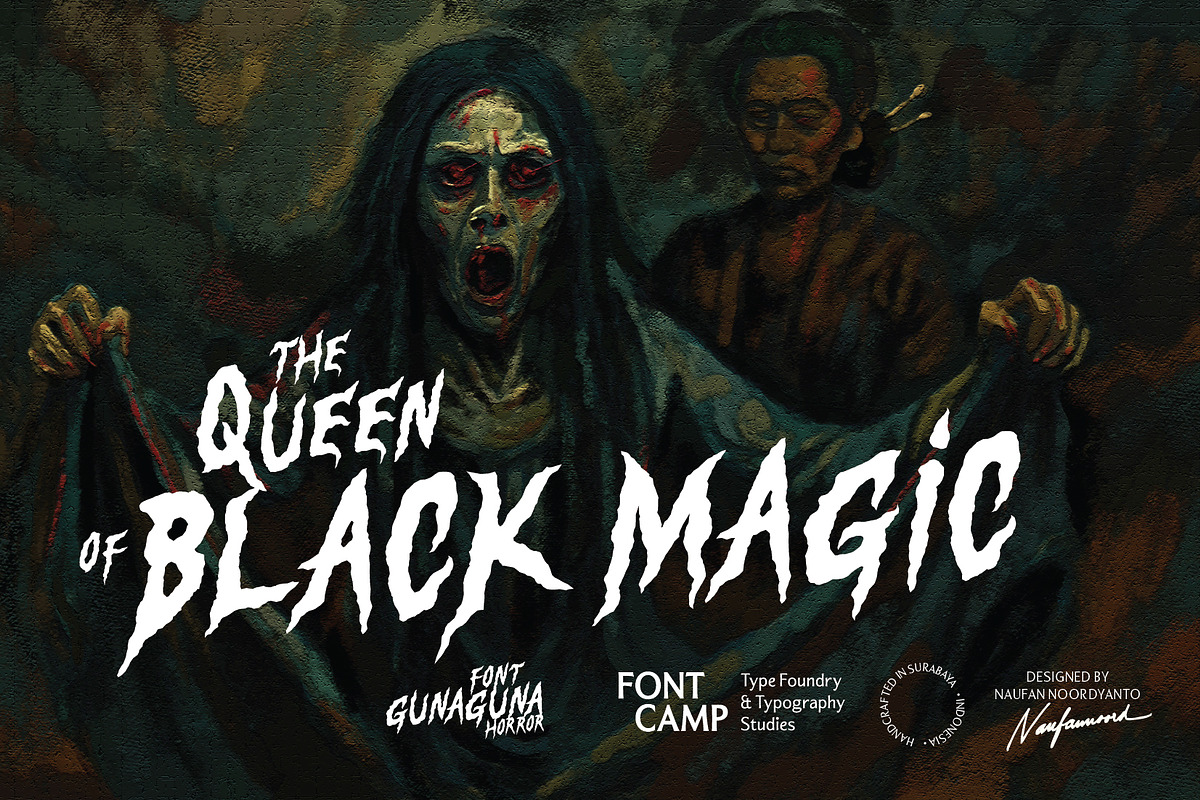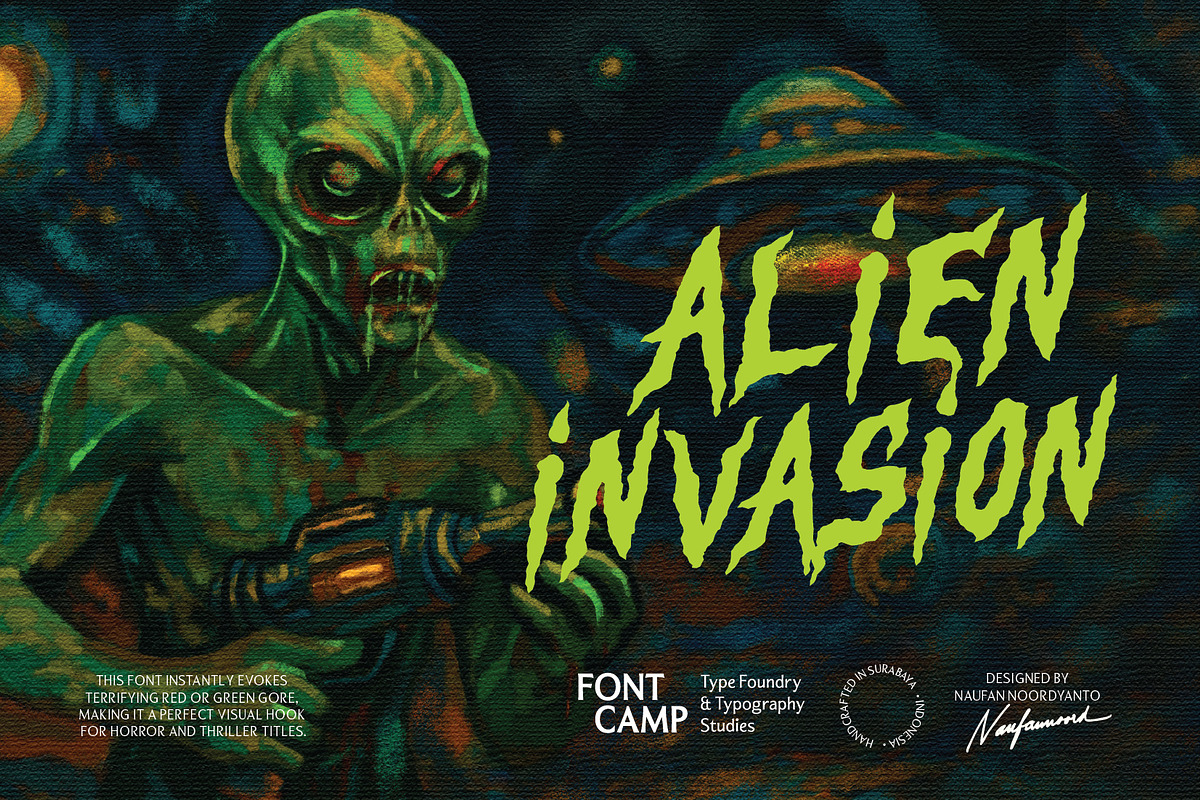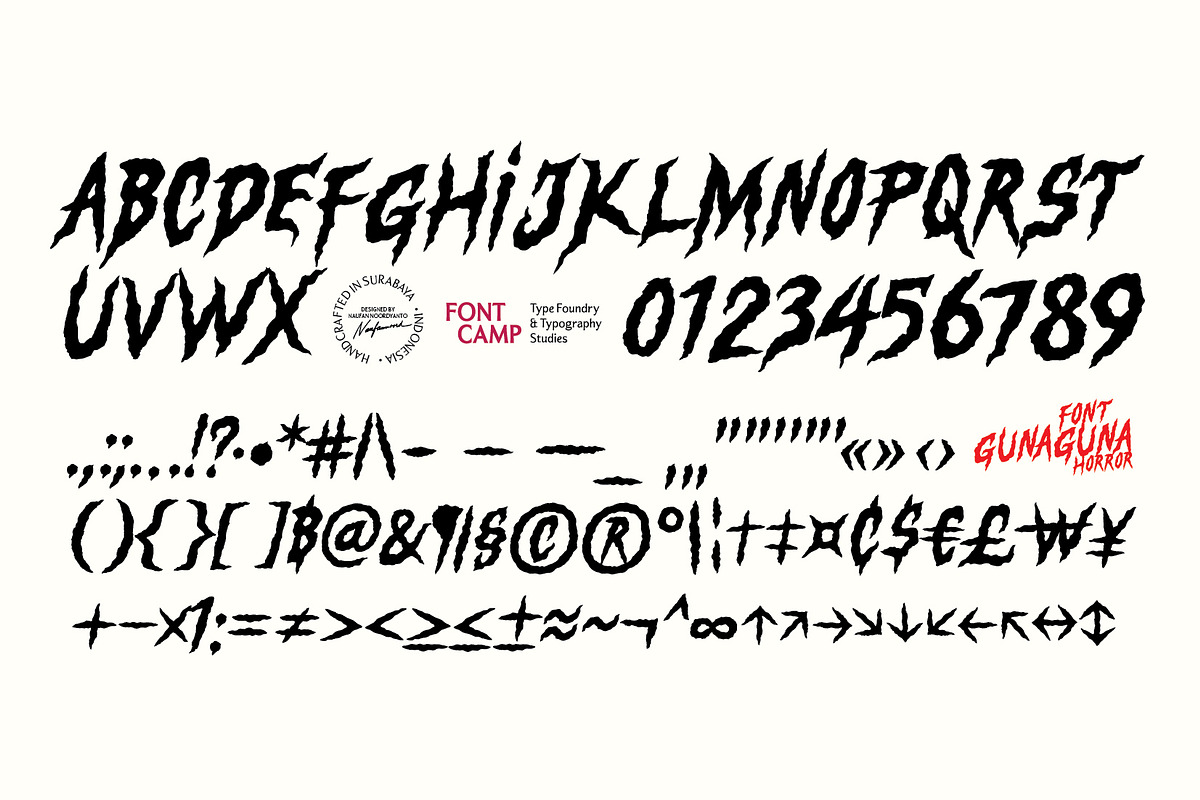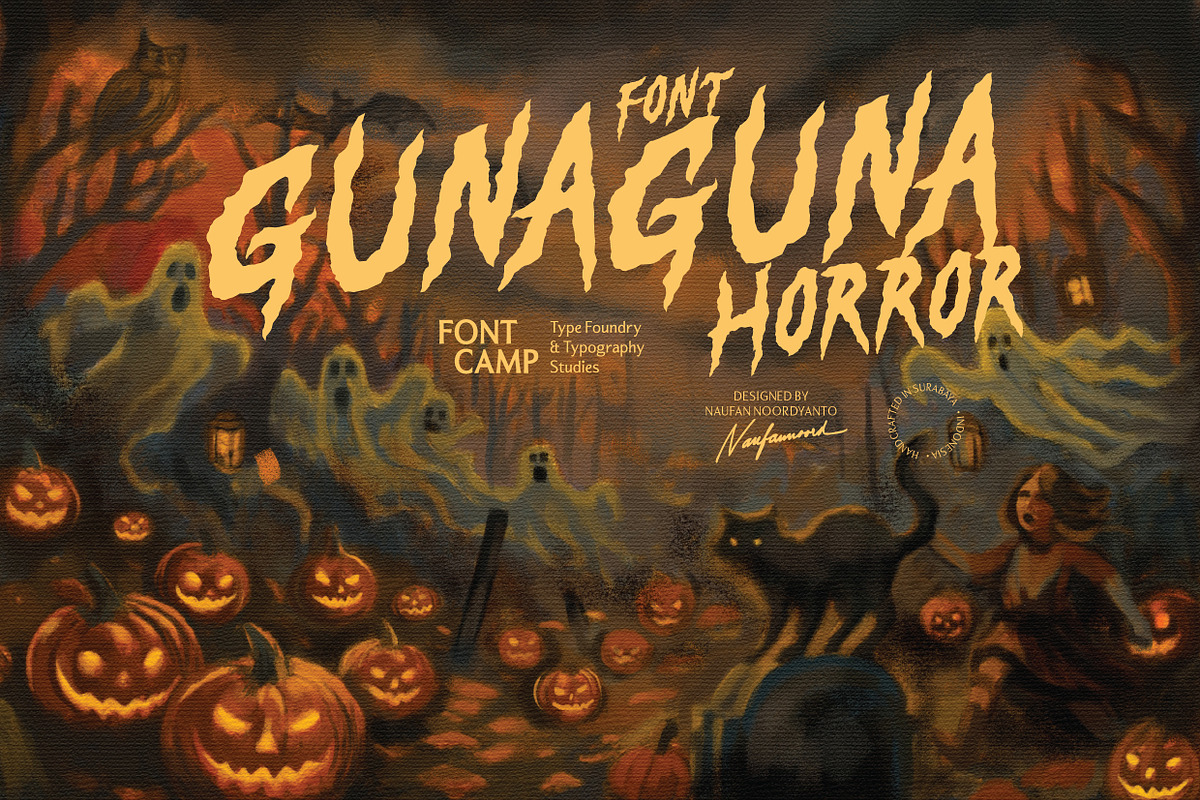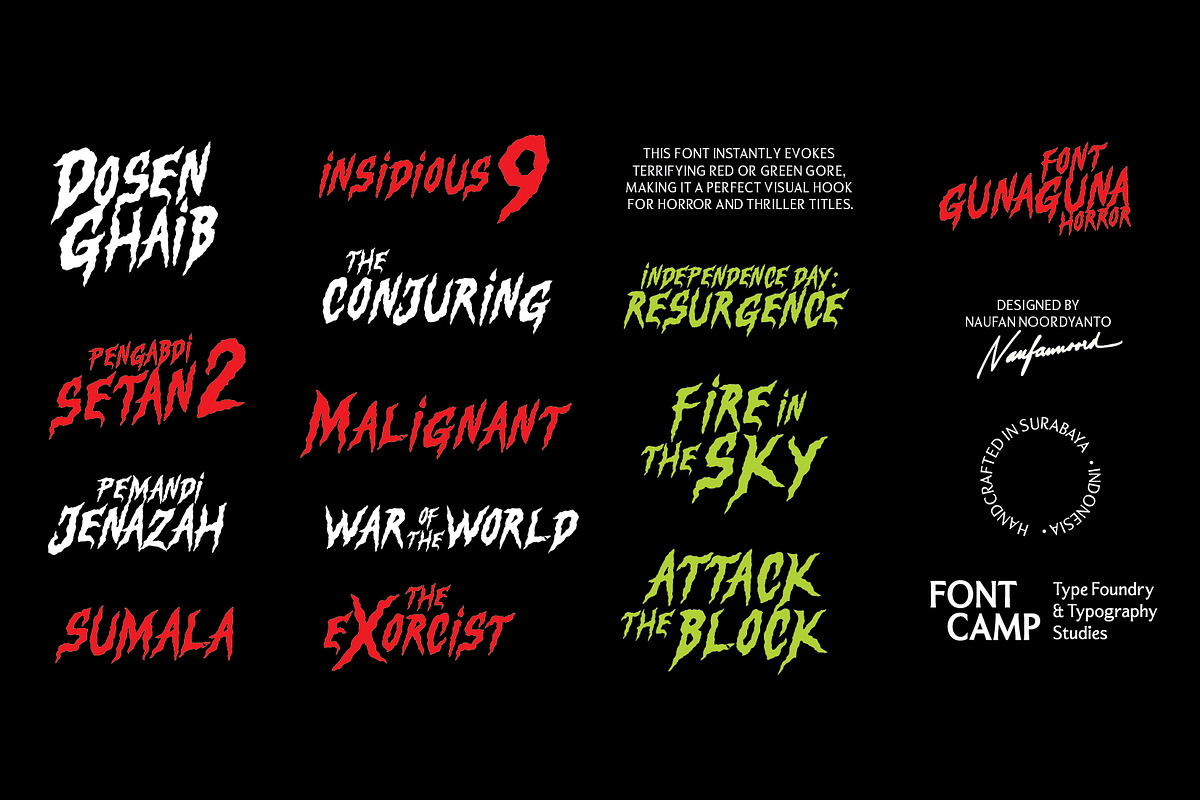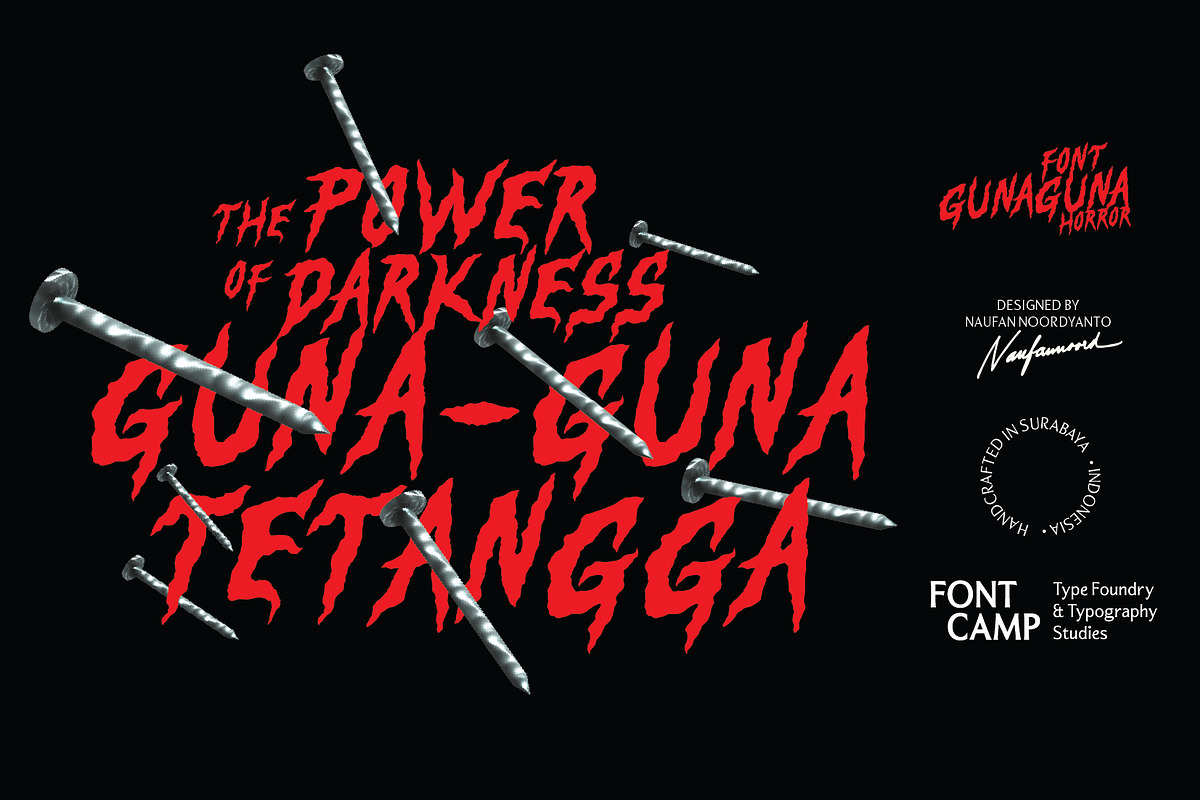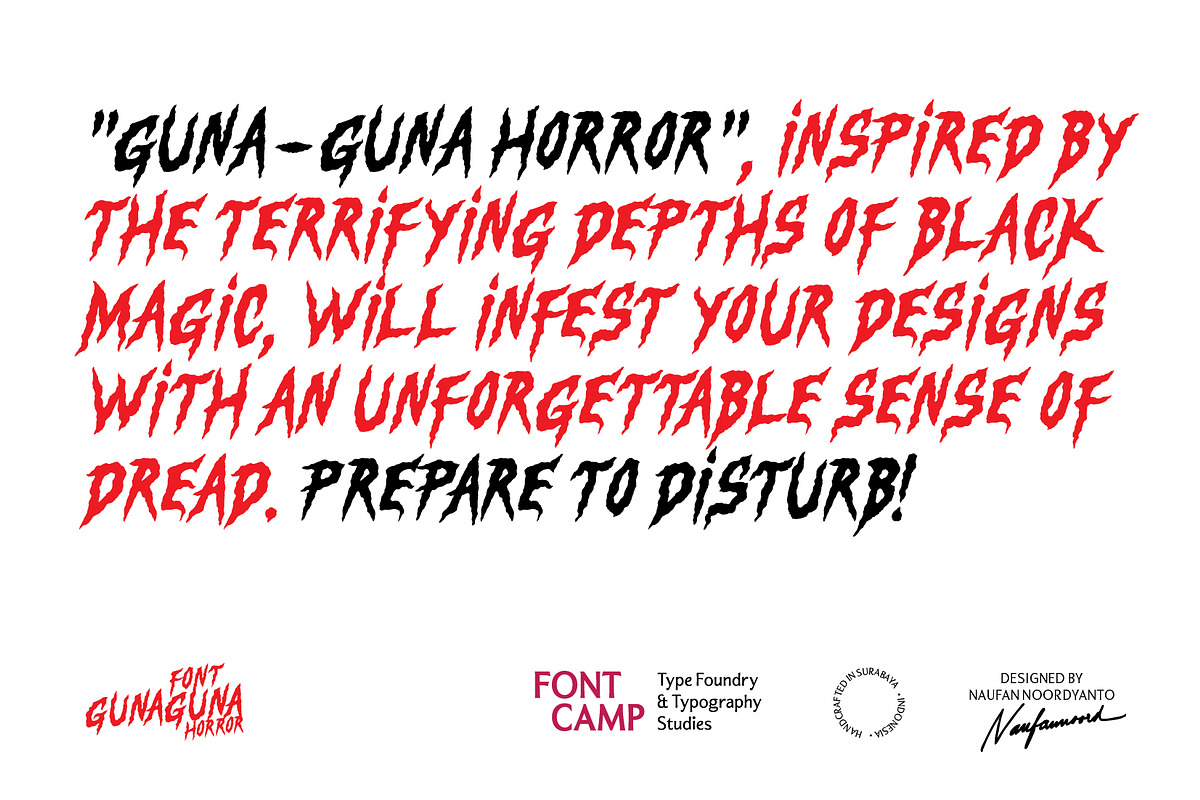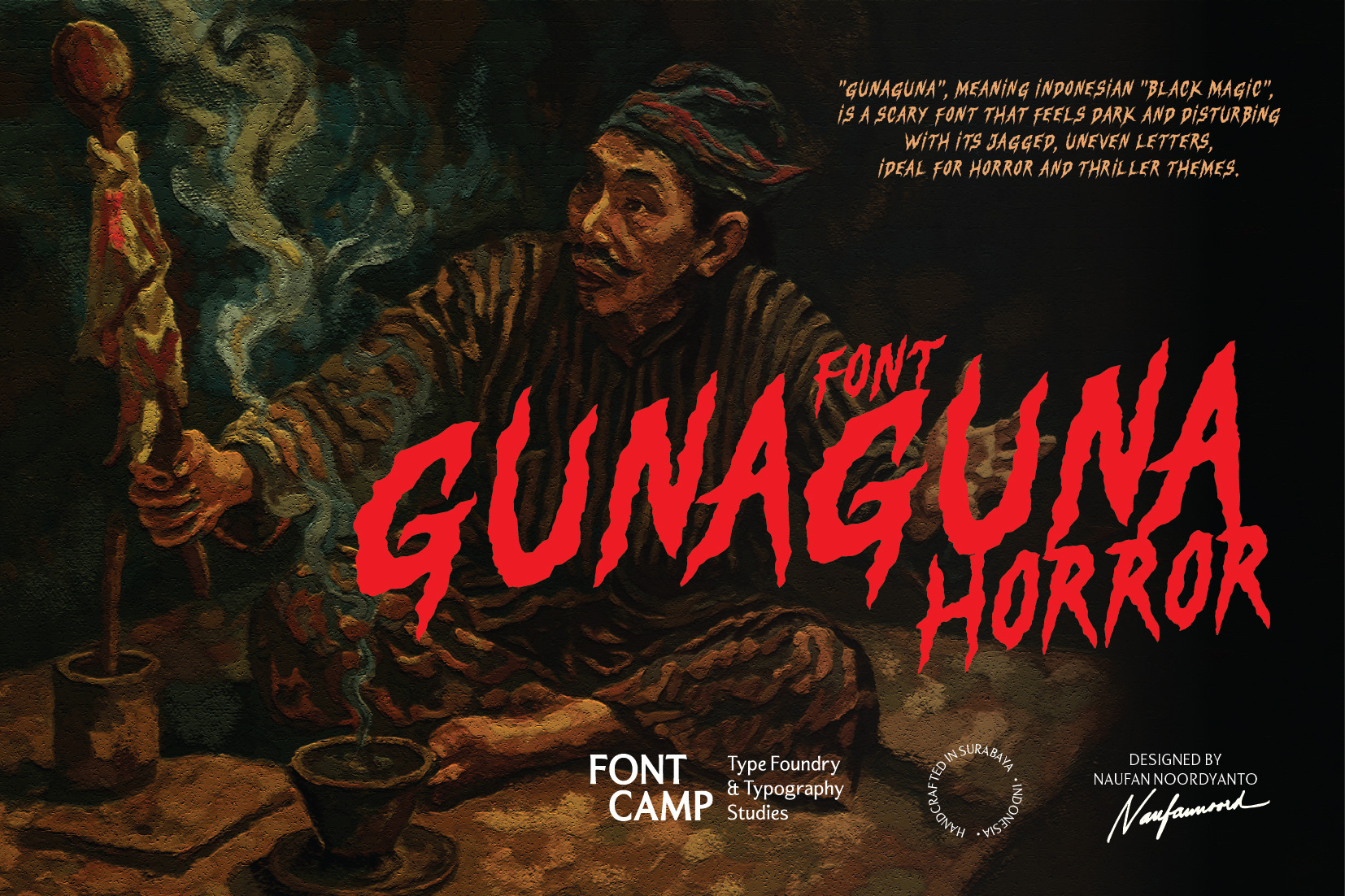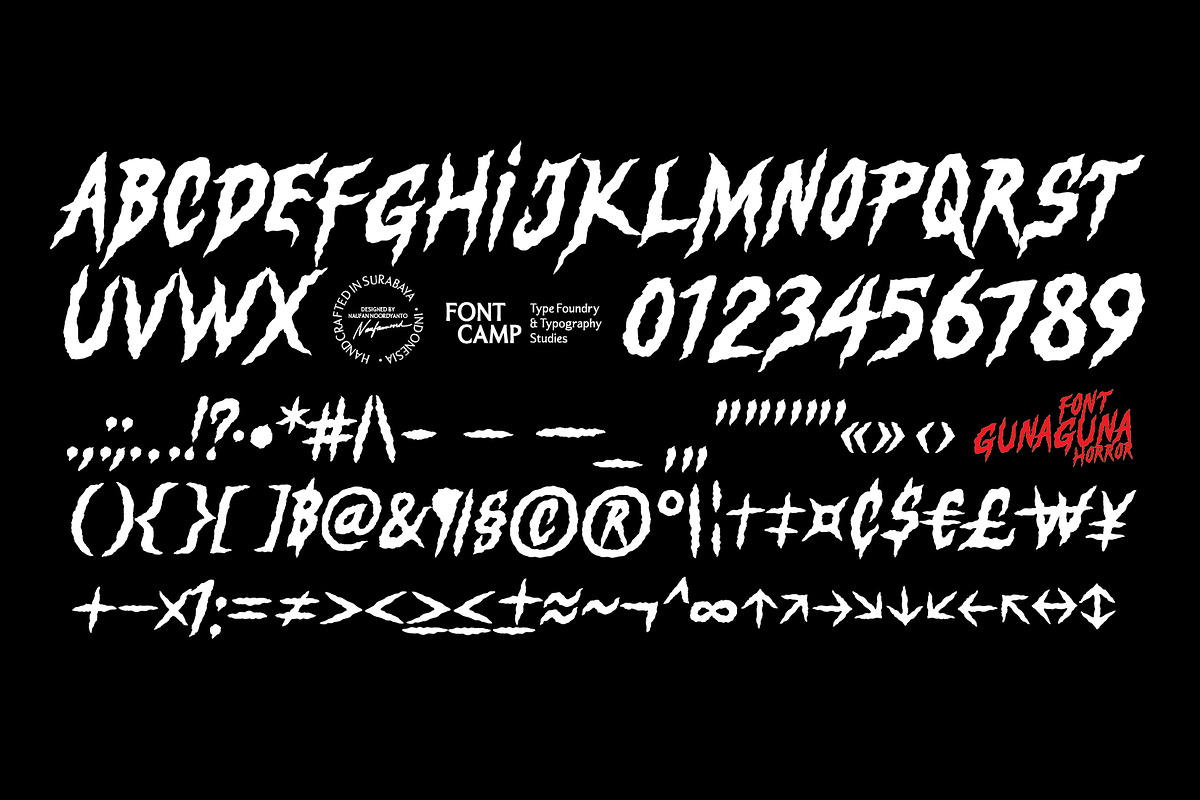
Gunaguna Horror Font
Introducing a font "Gunaguna Horror".
Crafted for a truly chilling effect, the "Gunaguna Horror" font immediately signals a sense of darkness and malice. Its warped and jagged characters create a disturbing visual identity, making it the perfect choice for macabre and paranormal projects. With its irregular, sharp, and distorted letterforms, this font creates a disturbing and mysterious atmosphere, perfect for horror and supernatural themes. However, its meaning is derived from the Indonesian term "guna-guna," which refers to "a type of black magic, sorcery, or incantation".
Designer: Naufan Noordyanto; Kerning: Naufan Noordyanto; Manufacturer: Fontcamp Type Foundry and Typography Studies. We craft and distribute fonts and custom typography. We foster typographic appreciation through design exhibitions, publications, and education.